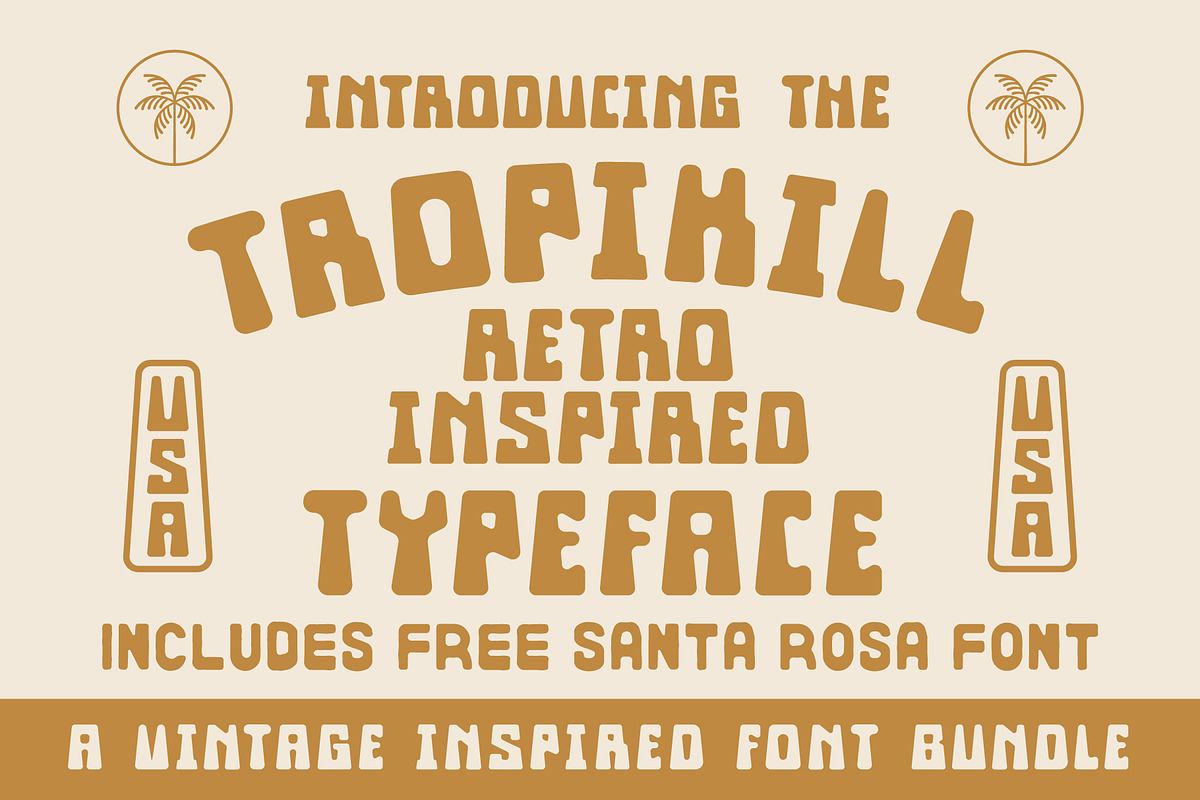
Tropikill Font Duo Free Download
Introducing Tropikill Font Duo Free Download, a dynamic pair of typefaces designed to bring a tropical flair to your creative projects. This duo combines a bold, hand-drawn display font with a complementary sans-serif, offering versatility and style. Ideal for branding, apparel design, posters, and more, Tropikill captures the essence of island vibes and adventurous spirit. Download it for free to explore its features in personal projects. For commercial use, please ensure you purchase the appropriate license. Elevate your designs with the vibrant energy of Tropikill Font Duo Free Download